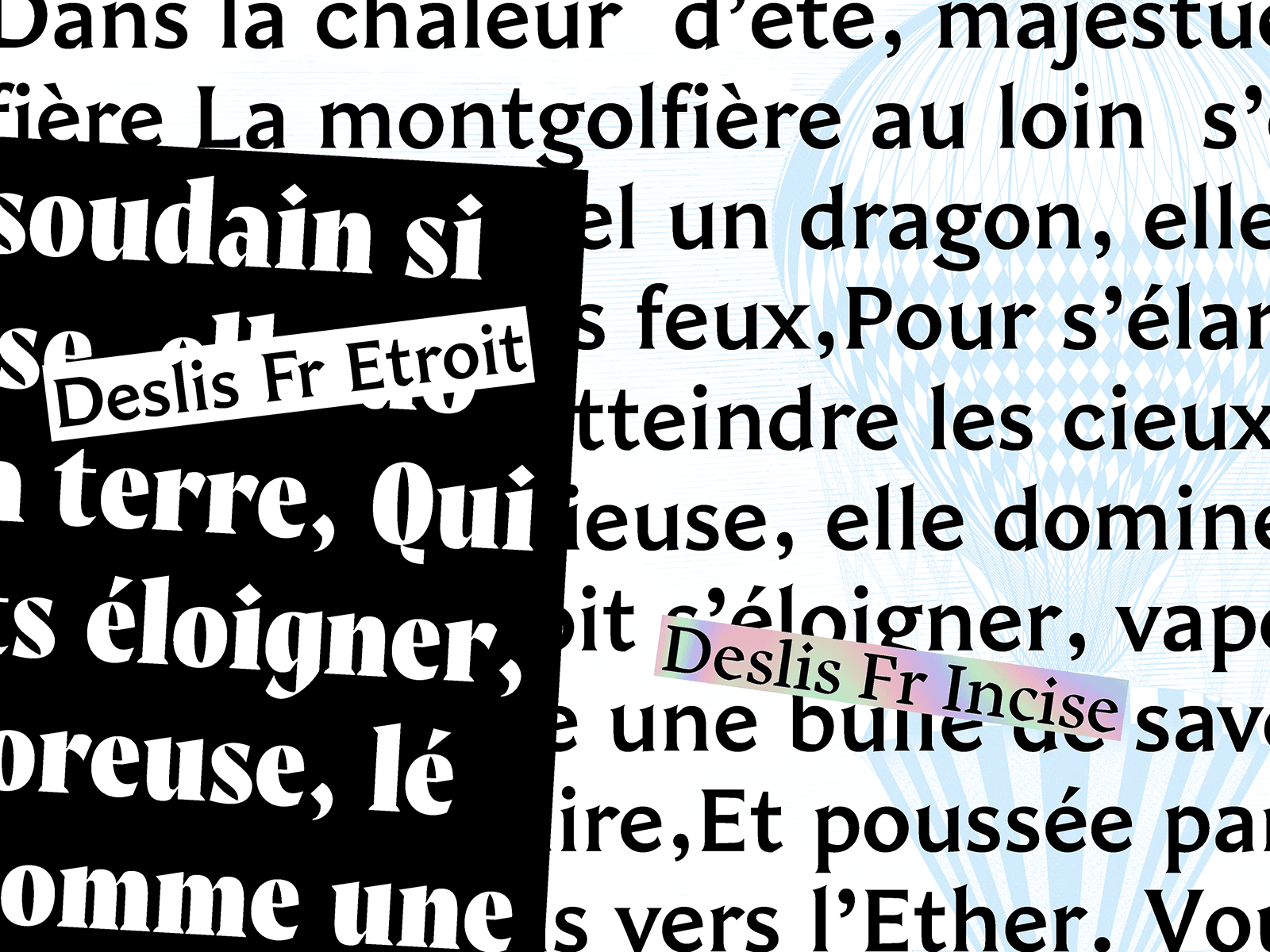
Deslis Frère
Deslis Frère, also called Deslis Fr, is a multiform type family forming a link between humanistic drawing and contemporary details. The project is inspired from two phonebooks printed by my grand-grand-father.
The range of typefaces used in these phonebooks is incredibly diverse and each of them has peculiarities. The type is composed of 5 different styles in order to create a rich type variety.
The overall tone of the family is referencing the printed ads dating back to the beginning of the XXth century. Deslis Frère is the name of my grand-grand-father’s print shop. Beyond the aesthetic this project is an exploration on my own family legacy.